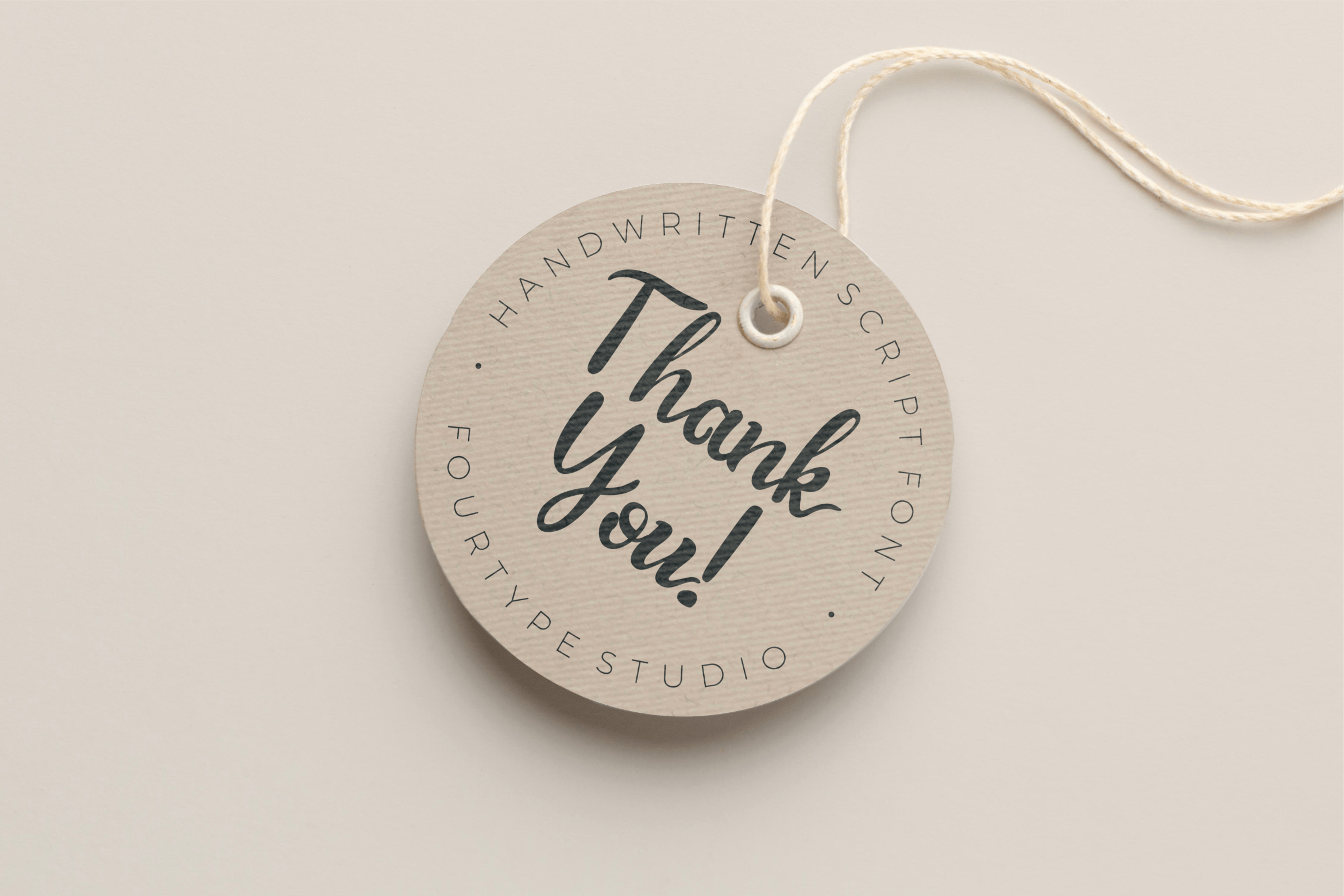
Cruel Motley Font is a flowing handwritten font, described by an elegant touch, perfect for your favorite projects. Fall in love with its incredibly distinct and timeless style and use it to create spectacular designs!